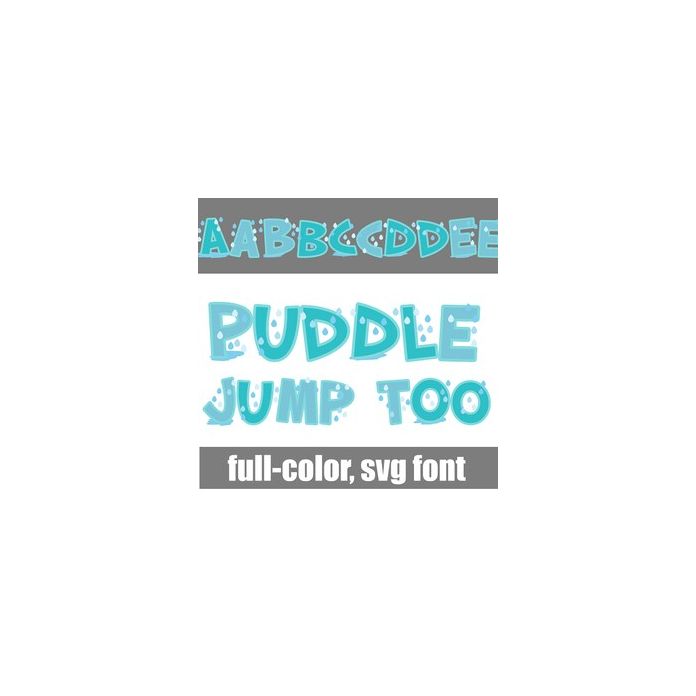
This full-color font features blue-ish lettering in puddles with rain. There is an alt case w/ additional colors you can access through your system or Silhouette's glyph map.